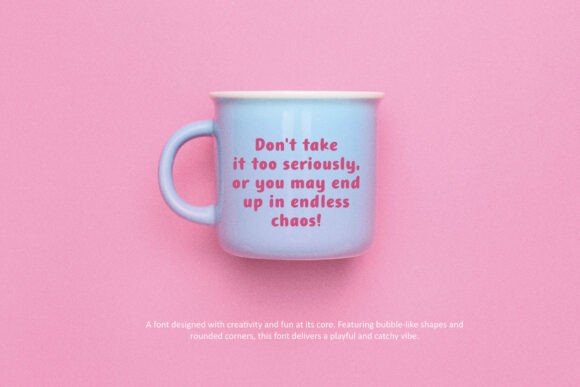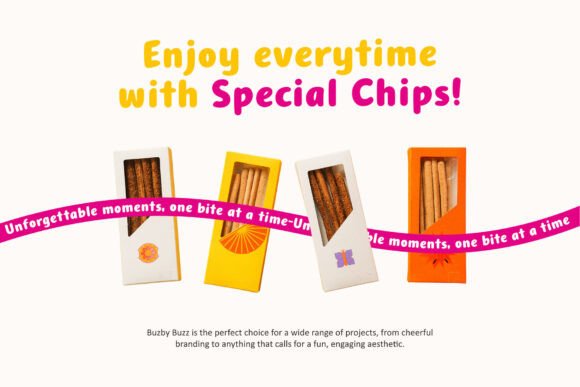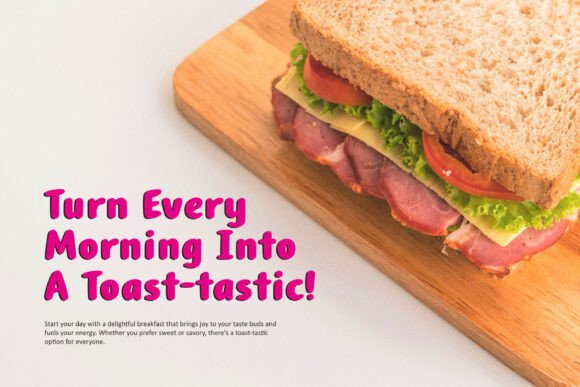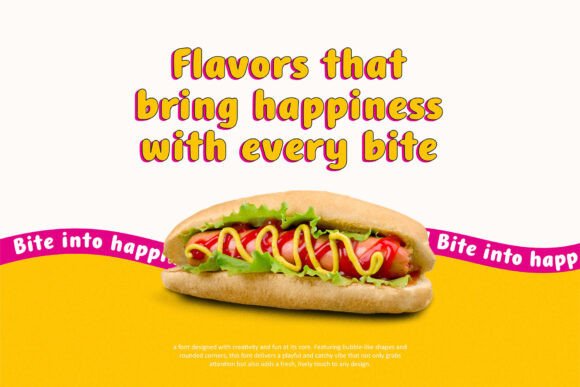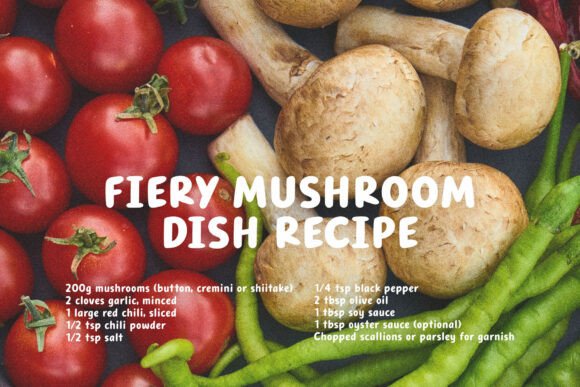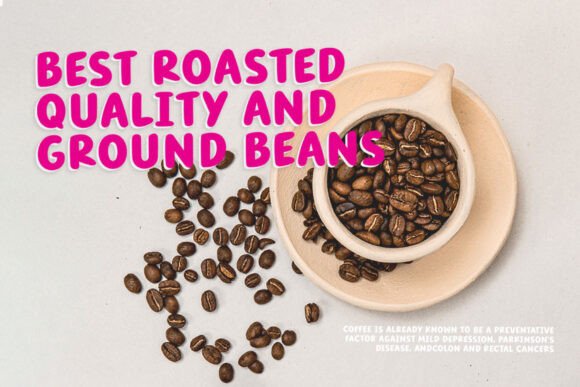
The Perfect Font for a Joyful Design
Do you ever find yourself staring at a blank canvas, trying to come up with the perfect idea to capture the imagination of your audience? We’ve all been there – the pressure to create something truly special can be overwhelming. But what if we told you that the solution is as simple as choosing the right font?
Enter Buzby Buzz Font, a charming display font designed to add a touch of whimsy and fun to any design project. With its soft, rounded edges and bubble-like texture, Buzby Buzz Font is perfect for bringing a sense of joy and warmth to your visual content. Whether you’re designing for children’s products, social media graphics, or anything in between, this font is a valuable asset for any designer looking to infuse personality into their work.
Buzby Buzz Font Key Features
- Font Family: Buzby Buzz Font is a unique, hand-drawn sans-serif font family, perfect for creating eye-catching headlines and titles.
- Character Set: Includes a comprehensive set of characters, including uppercase and lowercase letters, numbers, punctuation marks, and special characters.
- Unique Characteristics: Buzby Buzz Font features a distinctive, playful style with irregular letterforms and a bold, expressive feel, making it ideal for creative projects and branding.
Buzby Buzz Font Review
I recently had the chance to work with the Buzby Buzz Font, and I have to say it’s a mixed bag. On the one hand, there are some things that really stand out. ✨ The font’s playful, energetic vibe is perfect for designs that need a bit of whimsy. ✨ The letterforms are well-crafted, with a nice balance of curves and angles that make the text feel dynamic and engaging. ✨ The font also comes with a range of weights and styles, which is great for designers who need to create a consistent look and feel across different elements of a design.
- Playful, energetic vibe
- Well-crafted letterforms
- Range of weights and styles
On the other hand, there are some limitations to consider. ⚠️ The font can feel a bit overwhelming if used in large quantities, especially at smaller font sizes. ⚠️ The font’s unique characteristics can also make it difficult to read in certain contexts, such as in long blocks of text. ⚠️ Finally, the font’s price point may be a bit steep for some designers.
- Can feel overwhelming in large quantities
- Difficult to read in certain contexts
Overall, I think the Buzby Buzz Font is a solid choice for designers who are looking for a playful, energetic vibe. However, it’s not without its limitations, and designers should be aware of these before committing to using the font.
The Buzby Buzz Font is ideal for:
- Creating playful and energetic designs.
- Adding a touch of whimsy to children’s materials.
- Designing social media graphics and ads.
Tips for Getting the Most Out of Buzby Buzz Font
To get the most out of the Buzby Buzz Font, try:
- Pairing it with bold and bright colors.
- Using it in combination with other playful
Alternatives to “Buzby Buzz Font” for Designers
Great Vibes is a modern, handwritten font perfect for creating a friendly and approachable atmosphere. It’s ideal for use in social media graphics, advertisements, and other materials where a casual tone is desired. Great Vibes has a more refined and elegant feel compared to Buzby Buzz Font, which can make it a better choice for high-end or premium brands.
Pacifico is a beautiful, cursive font that works well in situations where a touch of elegance and sophistication is needed. It’s a great choice for use in wedding invitations, luxury branding, and other materials where a sense of refinement is desired. Compared to Buzby Buzz Font, Pacifico has a more polished and sophisticated feel, making it a better choice for brands that want to convey a sense of high-end quality.